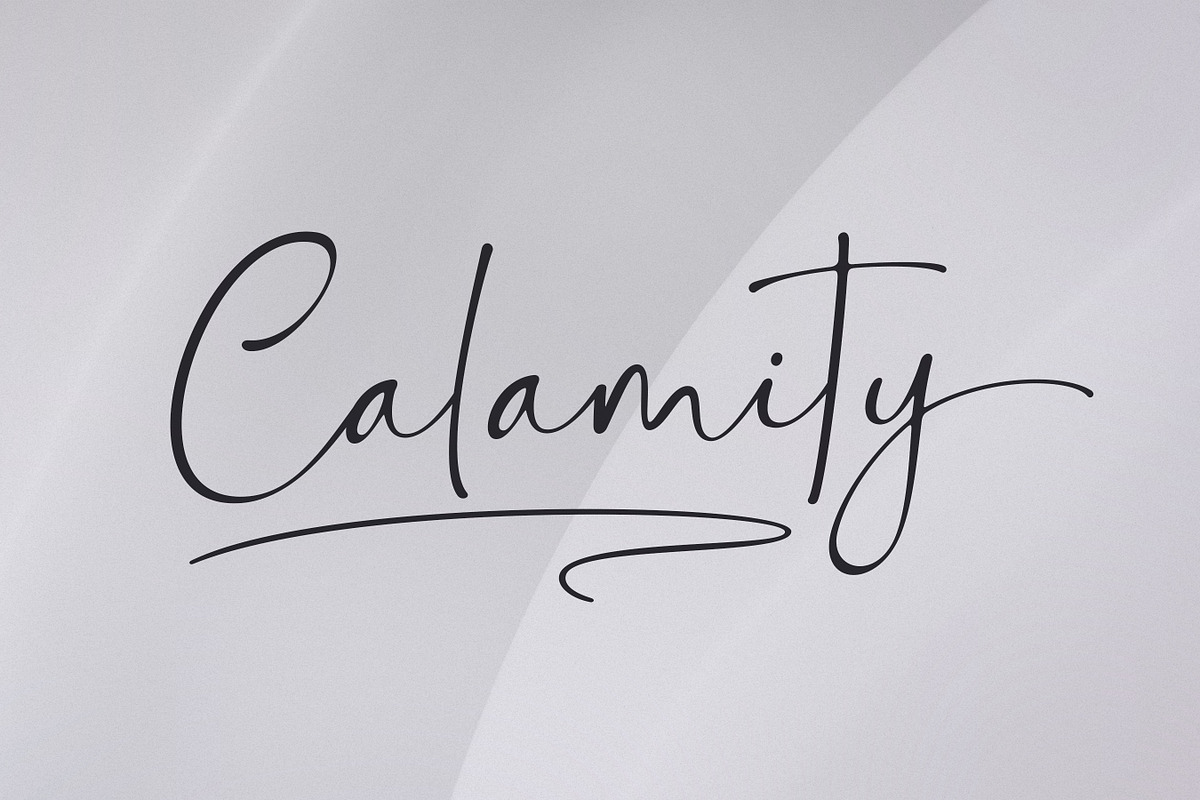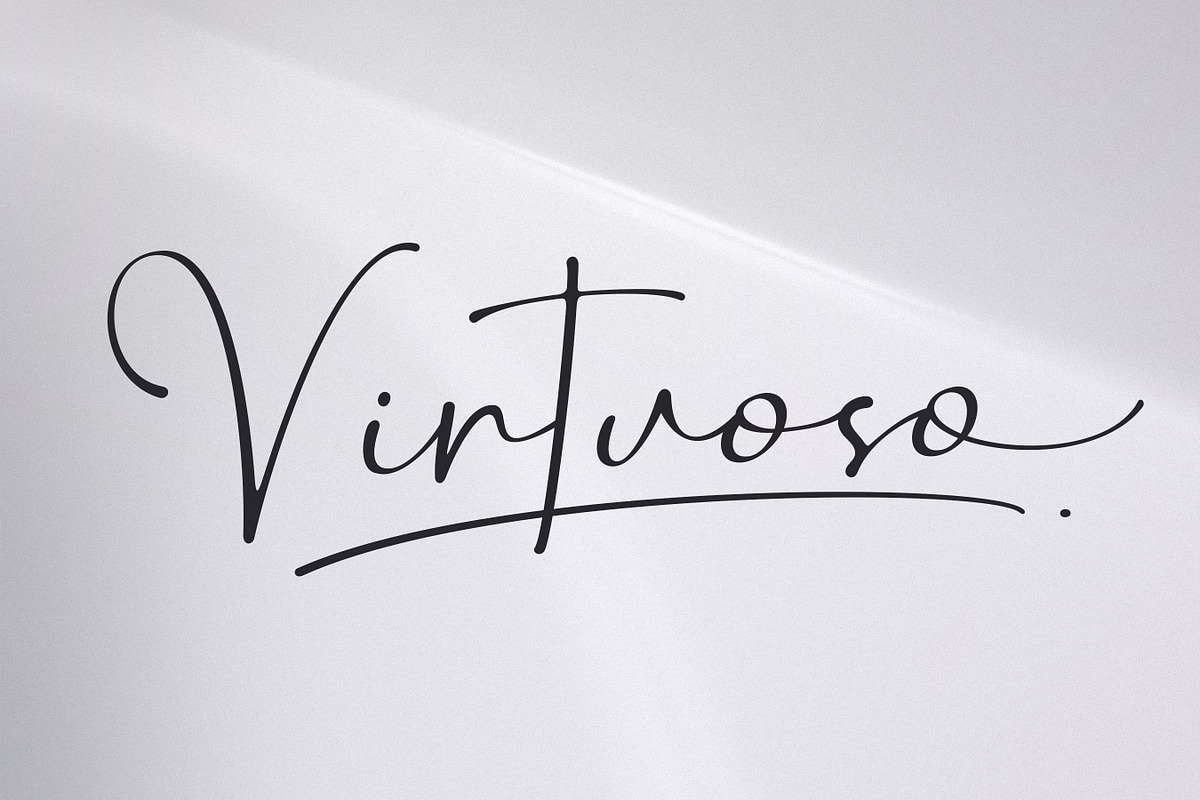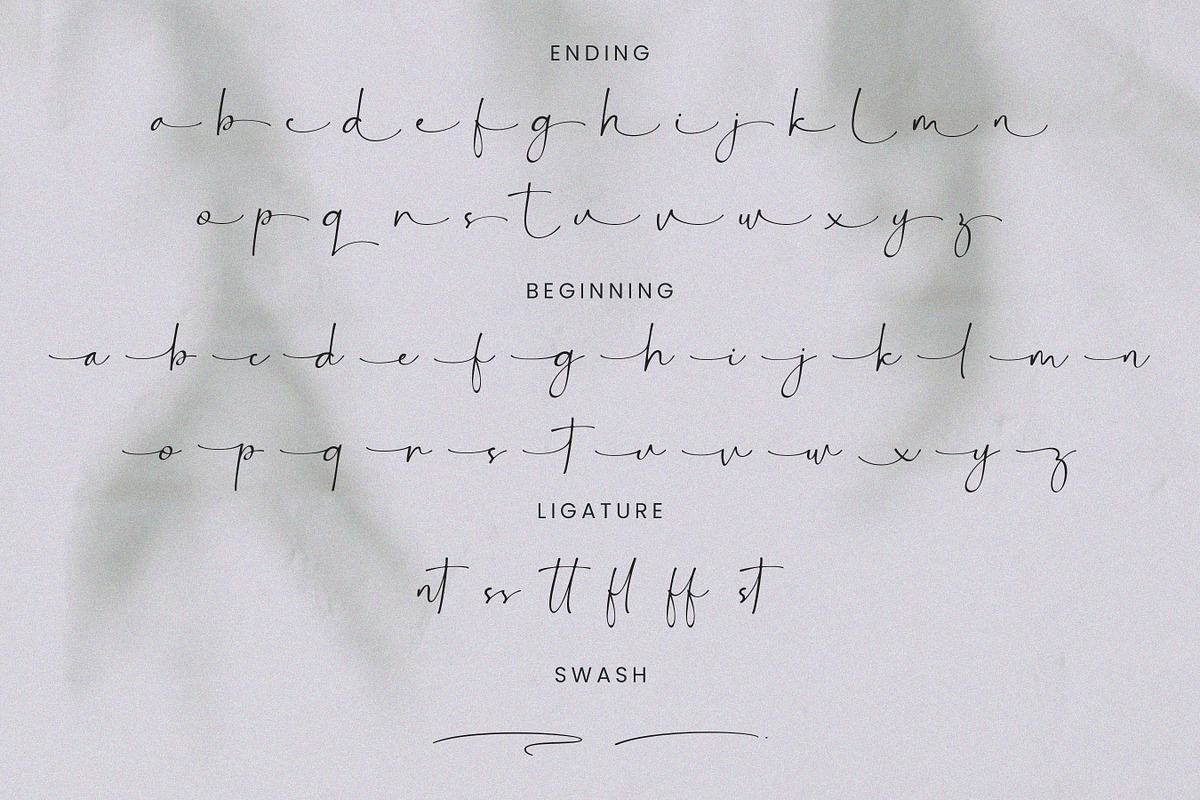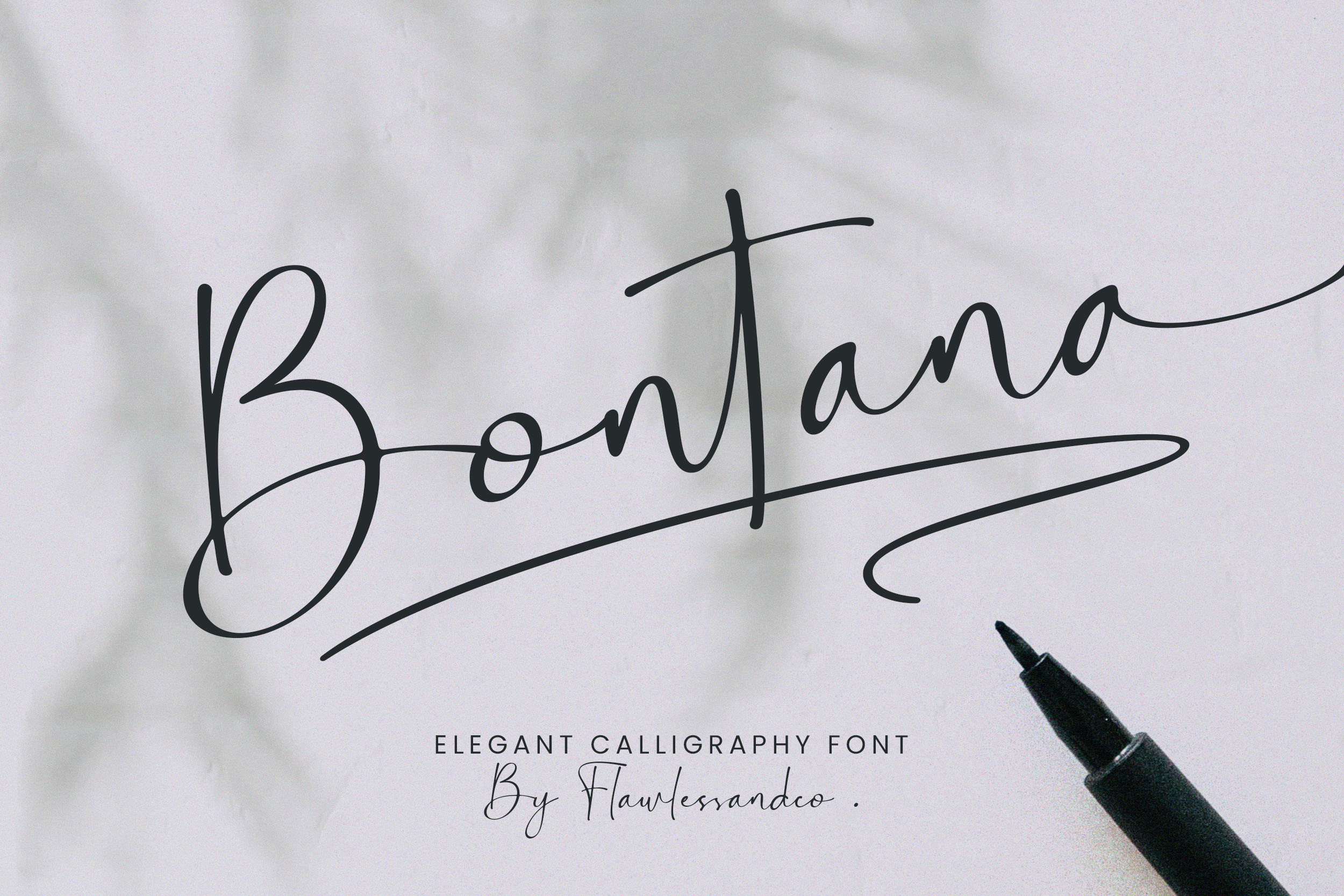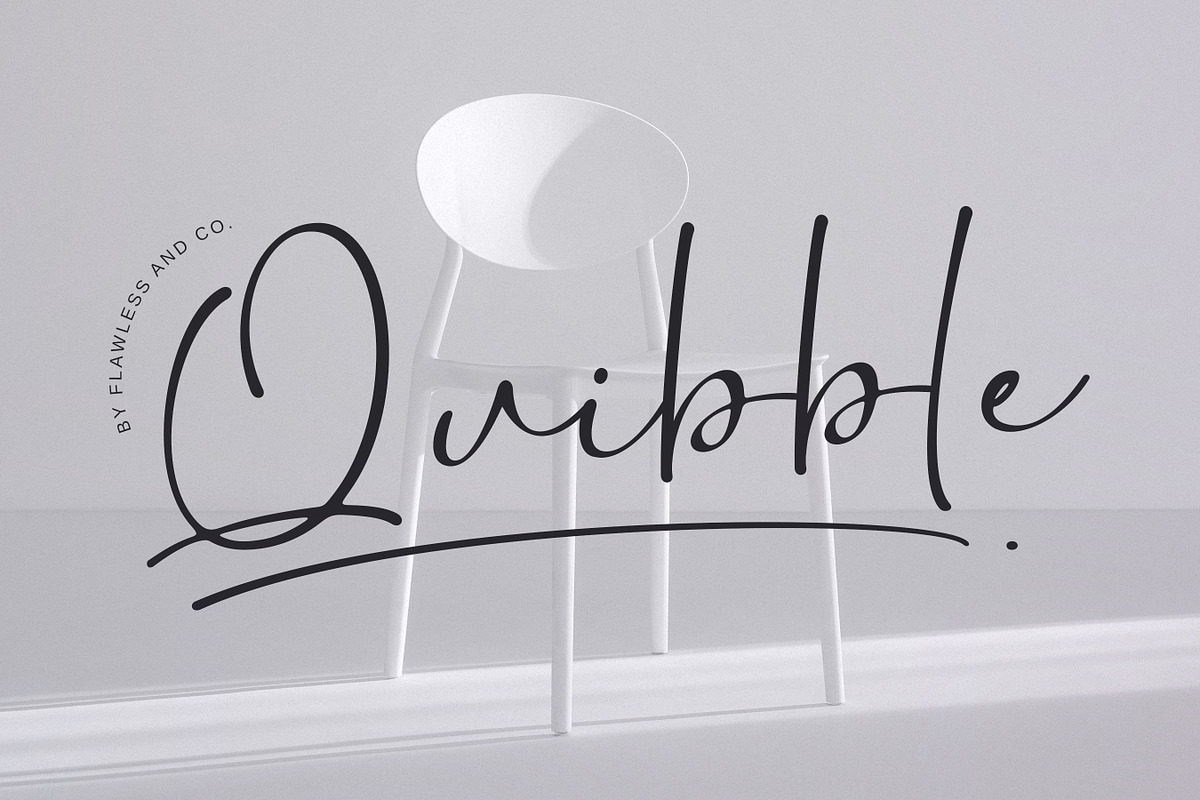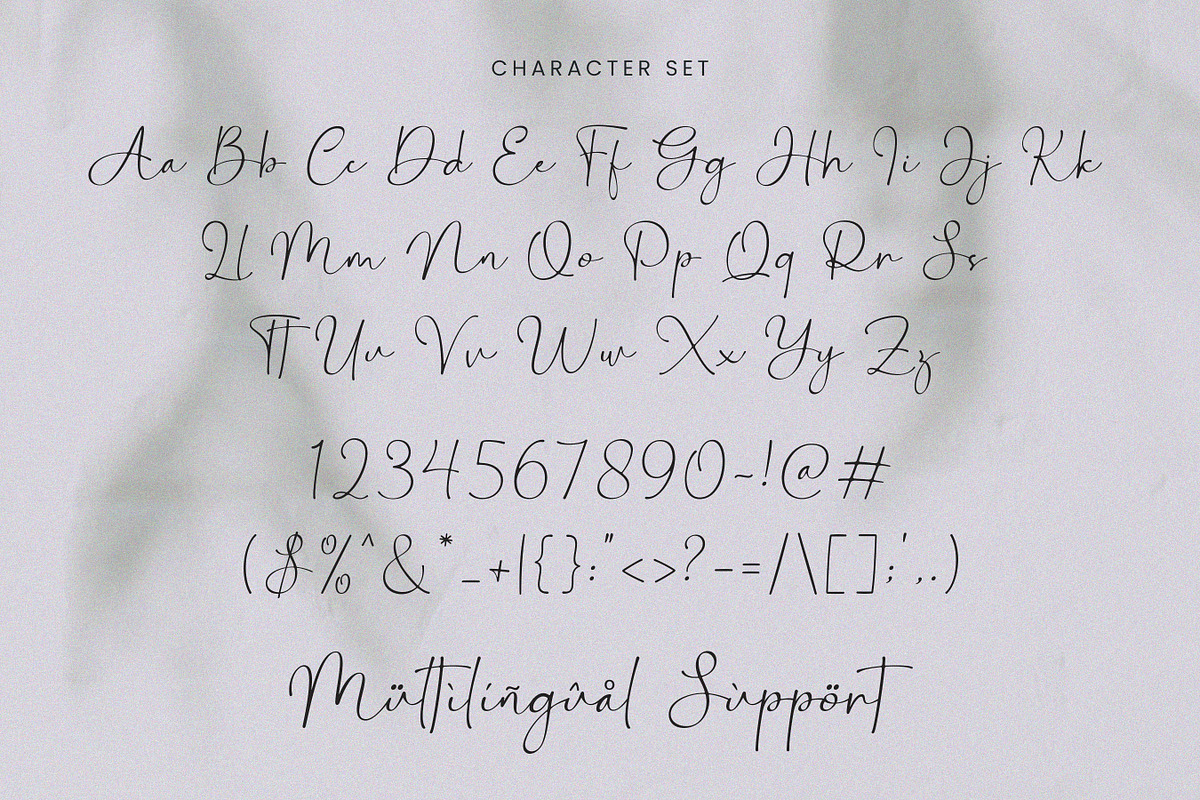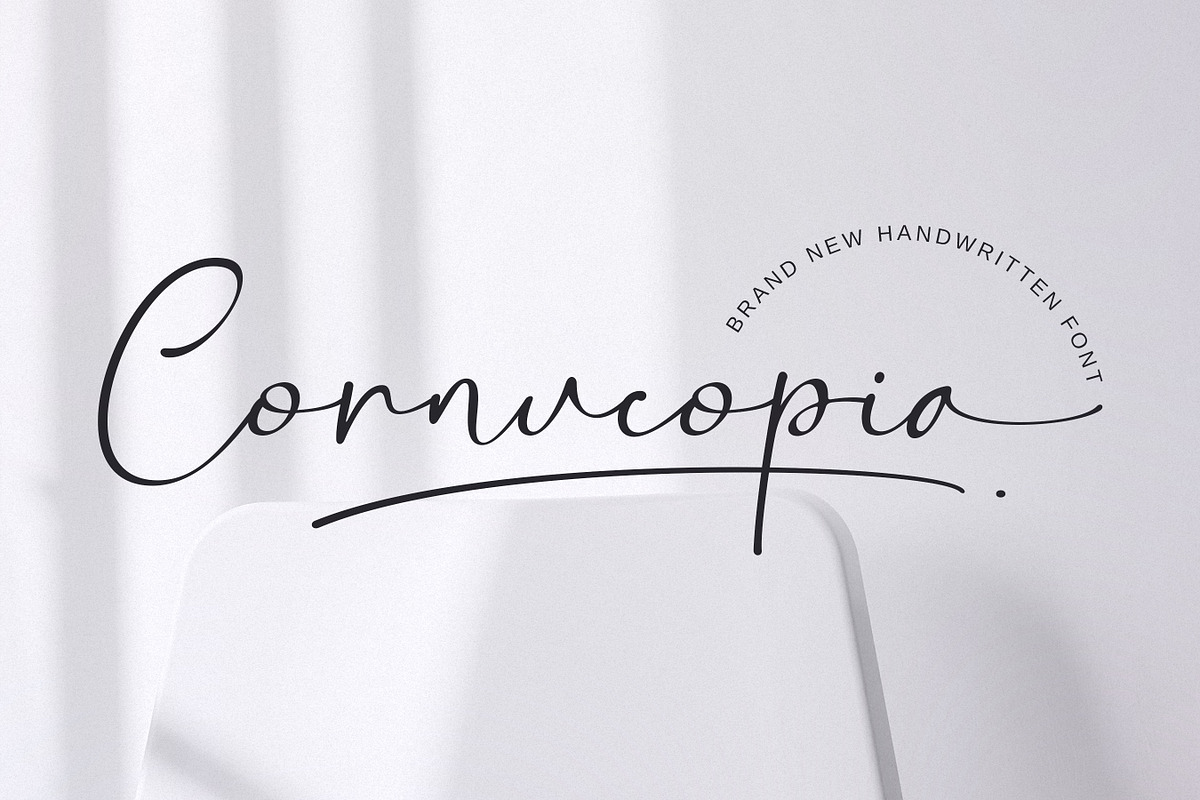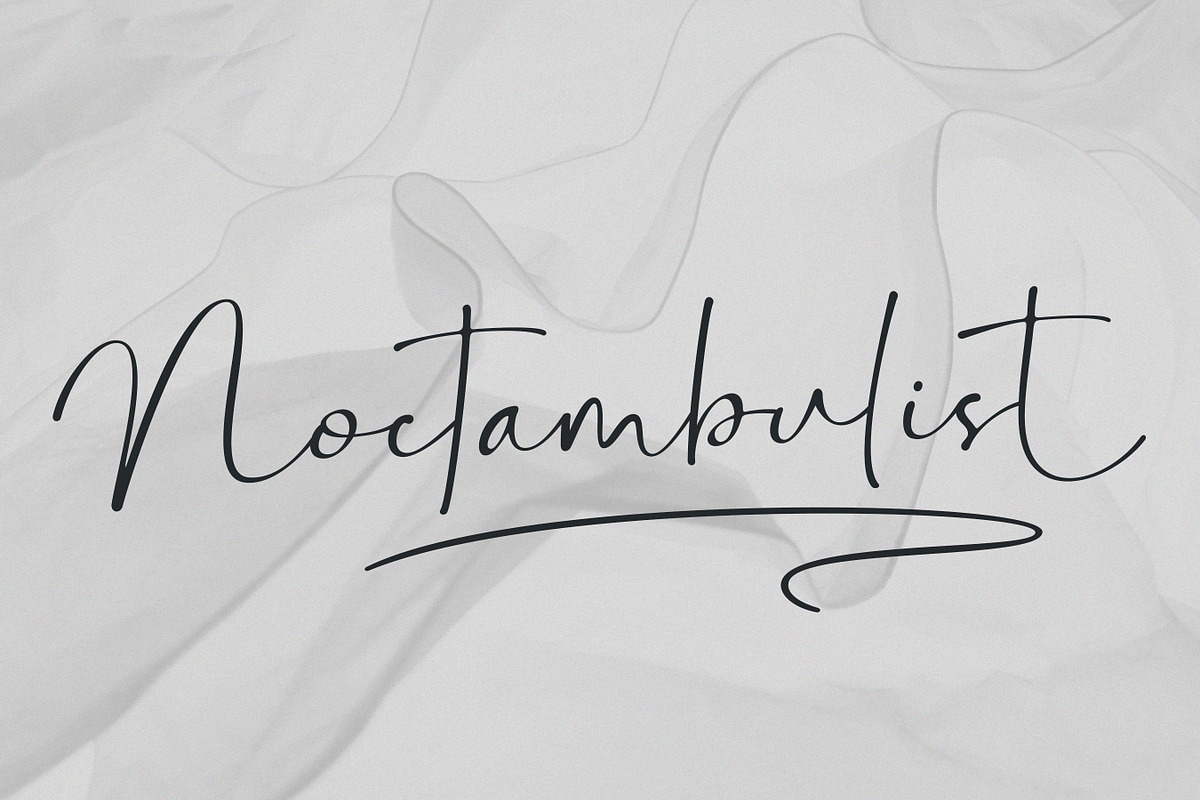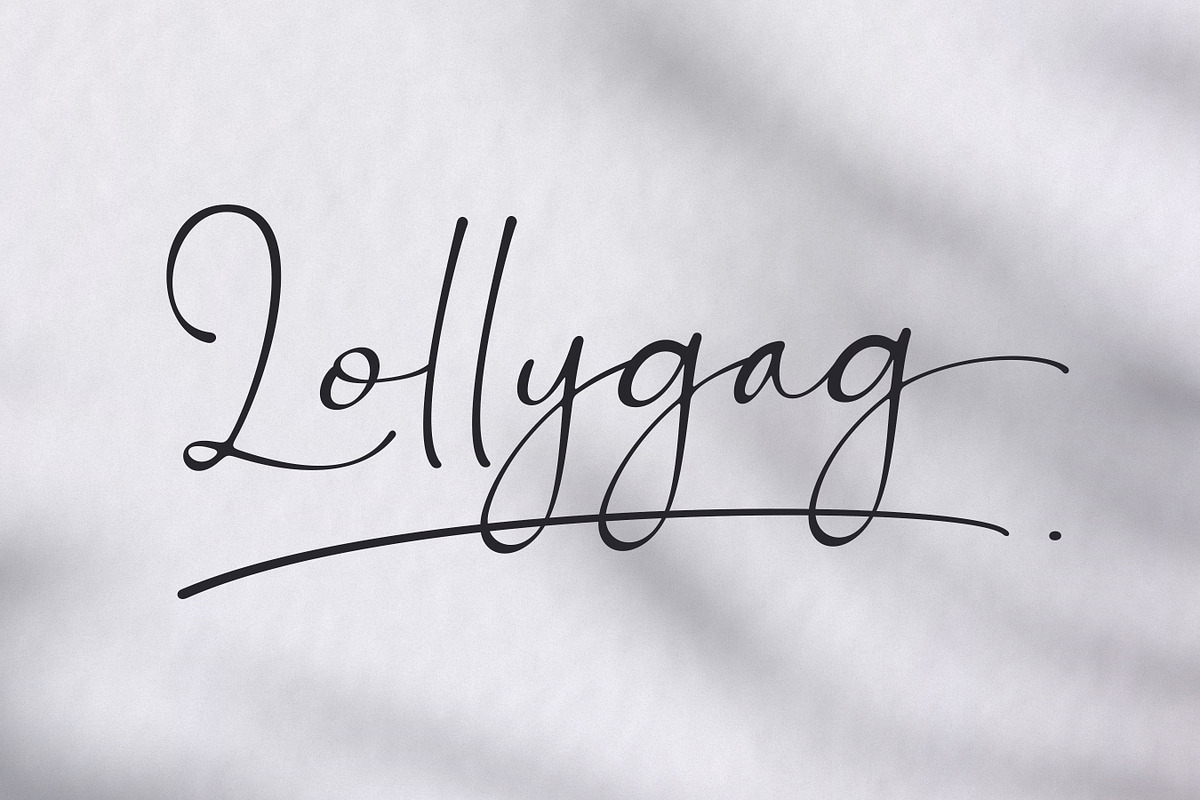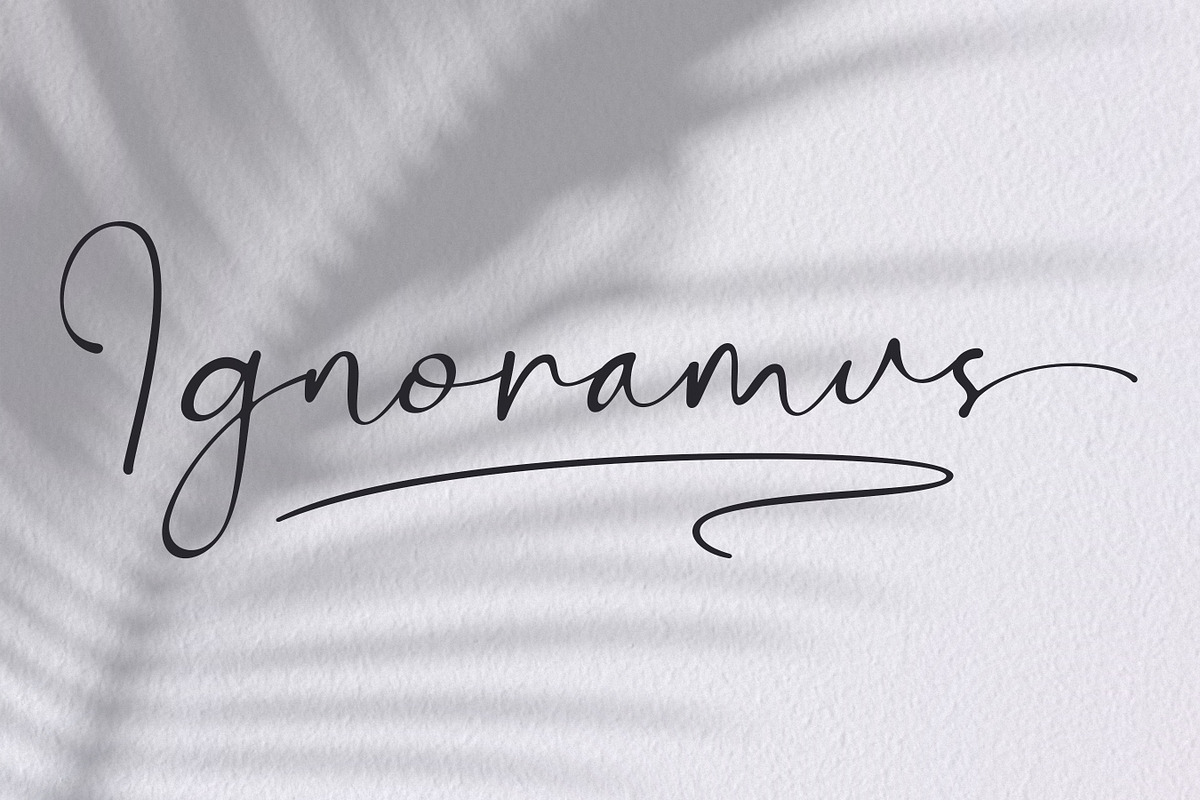
Bontana - Elegant Calligraphy Font
Introducing "Bontana" - An Elegant Calligraphy Font. Elevate your designs with the timeless beauty of "Bontana," an exquisite calligraphy script font that embodies elegance and sophistication. With its flowing strokes and graceful curves, "Bontana" is crafted to add a touch of refined charm and luxurious style to your projects.
Multilingual Uppercase alphabet A-Z Lowercase alphabet a-z Alternate Character Numbers 0-9 Some punctuation